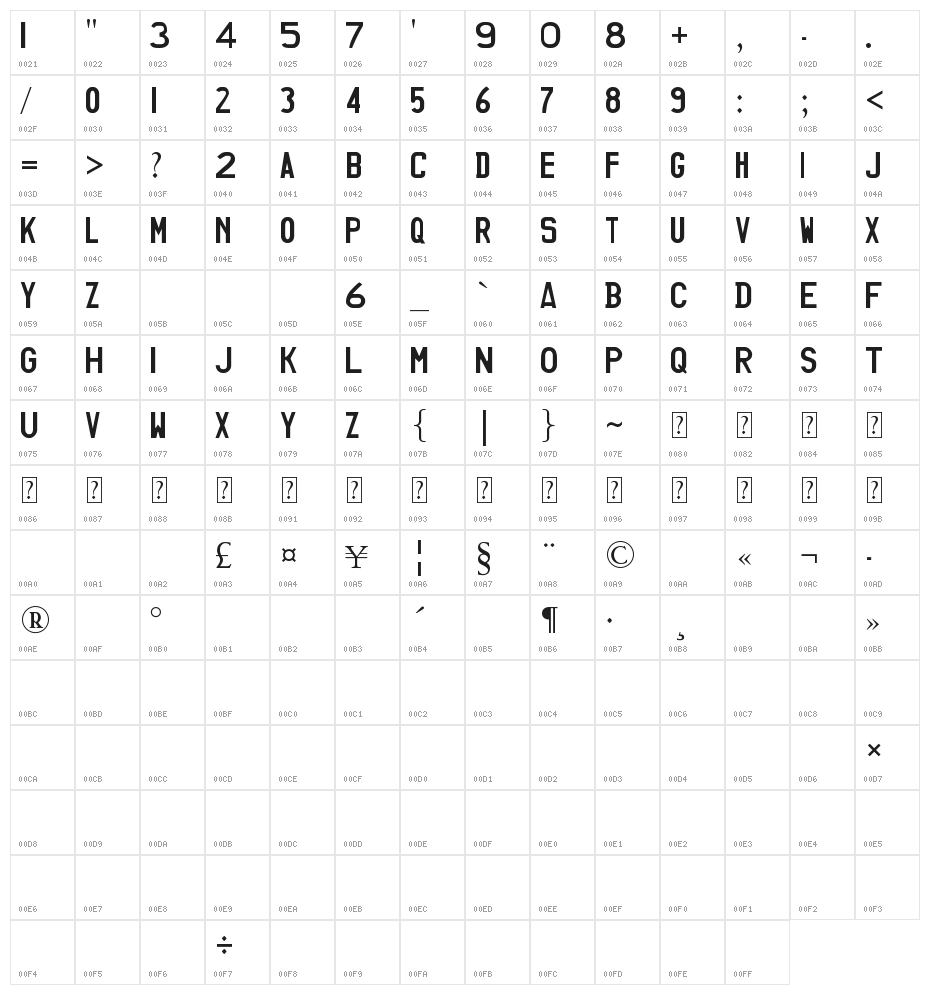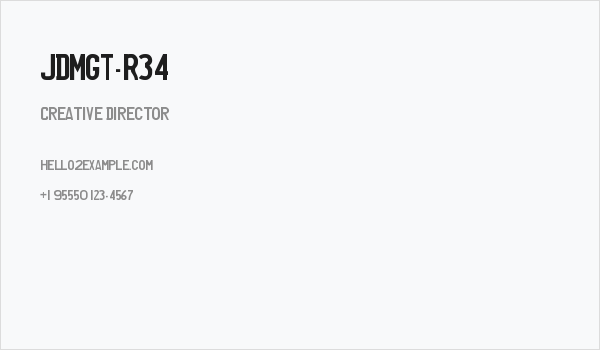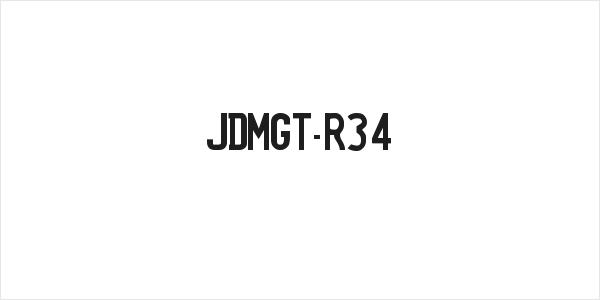
JDMGT-R34 Font
JDMGT-R34 Description
This font features a bold and geometric design, characterized by its strong, angular lines and uniform stroke width. The uppercase letters are particularly striking, with a modern and industrial feel that suggests strength and precision. The numerals and special characters maintain this aesthetic, offering a cohesive look across all glyphs. The font's clean and straightforward style makes it highly legible, even at smaller sizes, while its boldness ensures it stands out in larger displays. The consistent stroke width and lack of serifs contribute to a contemporary appearance, making it suitable for a variety of modern design applications.
Use CaseHeadlines, Logos, Signage
Proposed ProjectsIdeal for branding, signage, and editorial design where a strong, modern look is desired.